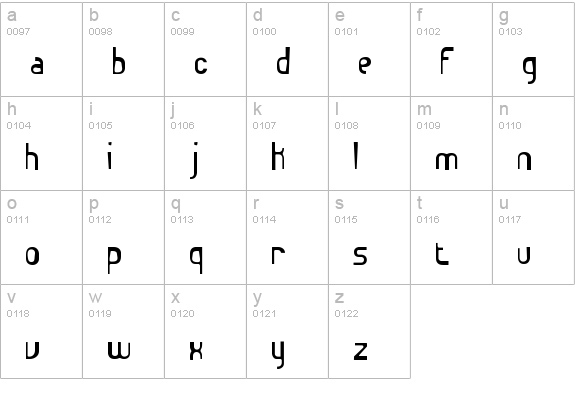
Euphoric BRK font is a modern and stylish typeface that exudes a sense of excitement and joy. With its sleek lines and contemporary appeal, this font is perfect for adding a touch of euphoria to any design project. The unique BRK style adds a bold and dynamic look to your text, making it stand out from the crowd. What makes Euphoric BRK font even more amazing is that it is available for free download at FontsMarket.com. This means you can easily access and use this fantastic font in your personal or commercial projects without any cost. So, go ahead and add a dash of euphoria to your designs with the captivating Euphoric BRK font!